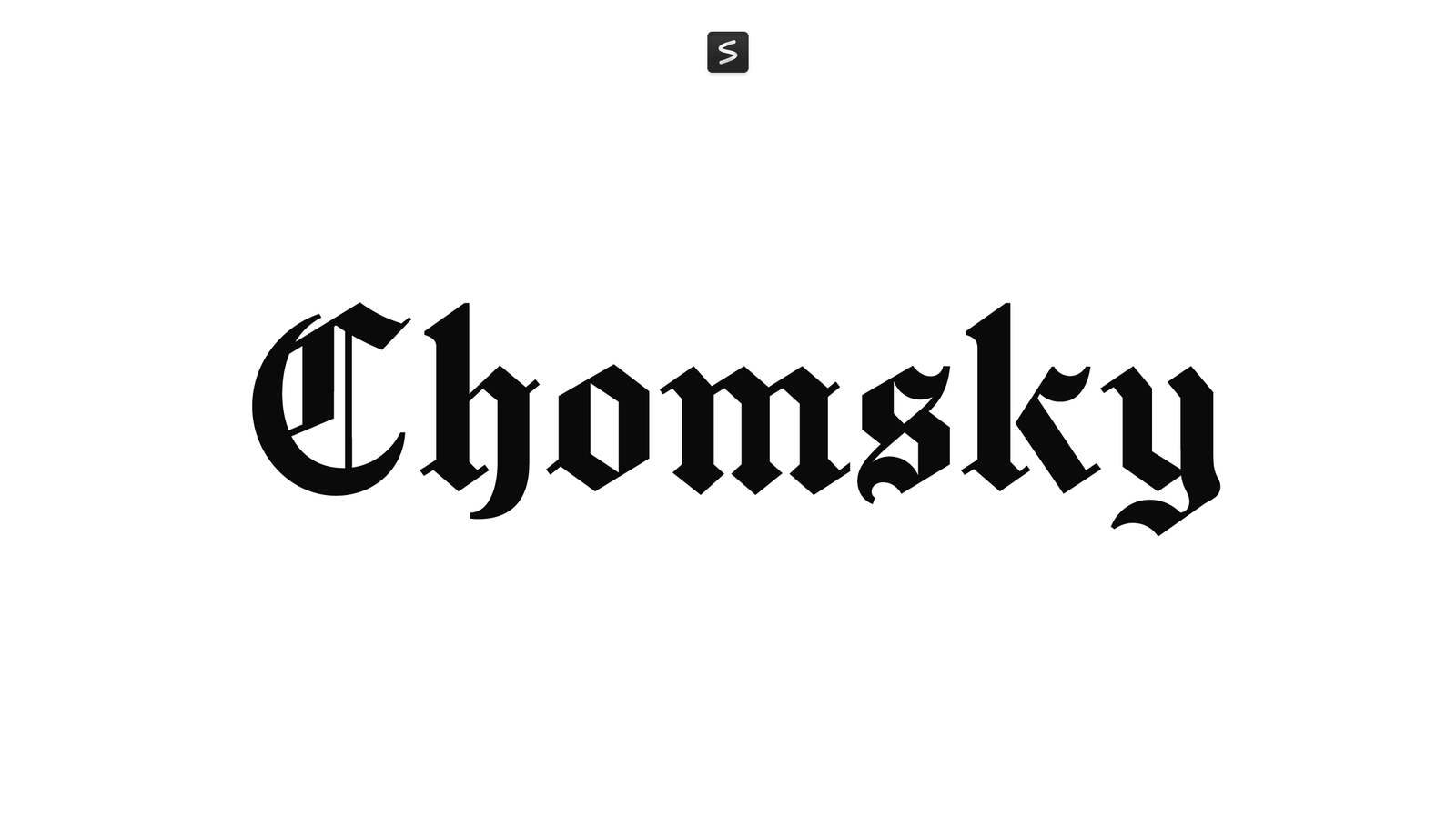
Chomsky is a display font designed by Fredrick Brennan that draws inspiration from newspaper mastheads, particularly the New York Times. Its gothic-influenced letterforms carry the weight and presence of classic broadsheet typography, making it instantly recognizable for headline work.
The font’s bold, structured strokes and tall proportions give it a formal, authoritative presence. It works well for anything needing that established, editorial sensibility: mastheads, posters, book covers, album artwork, or branding that wants to reference print journalism and mid-century graphic design.
Chomsky brings a straightforward, classic quality to projects without requiring extensive explanation or stylistic justification. If you need a display typeface with clear roots in traditional newspaper design, this is a direct choice.